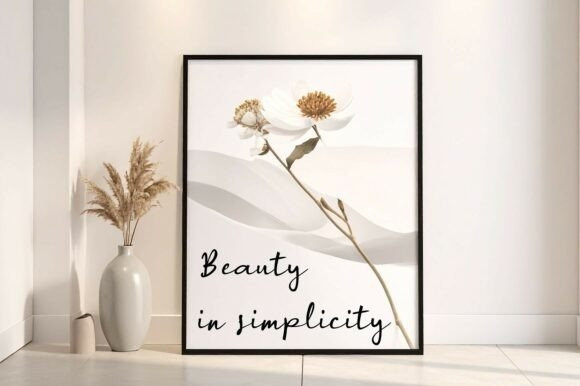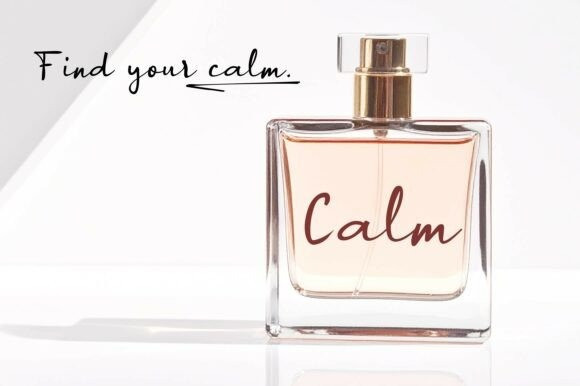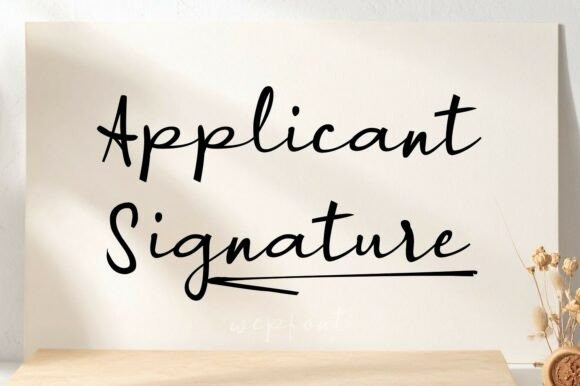
Applicant Signature Handwriting Font
Applicant Signature Handwriting Font a refined and authentic script font that perfectly emulates the natural elegance of a genuine handwritten signature.
This font features gracefully flowing strokes and realistic variations, giving each letter a personal and unique character. Its fluid connections and legible design evoke a sense of sophistication and human touch, making it ideal for adding a bespoke feel to any design.
Applicant Signature includes a comprehensive set of uppercase and lowercase letters, numerals, and standard punctuation, all meticulously designed to maintain its organic and artistic quality.